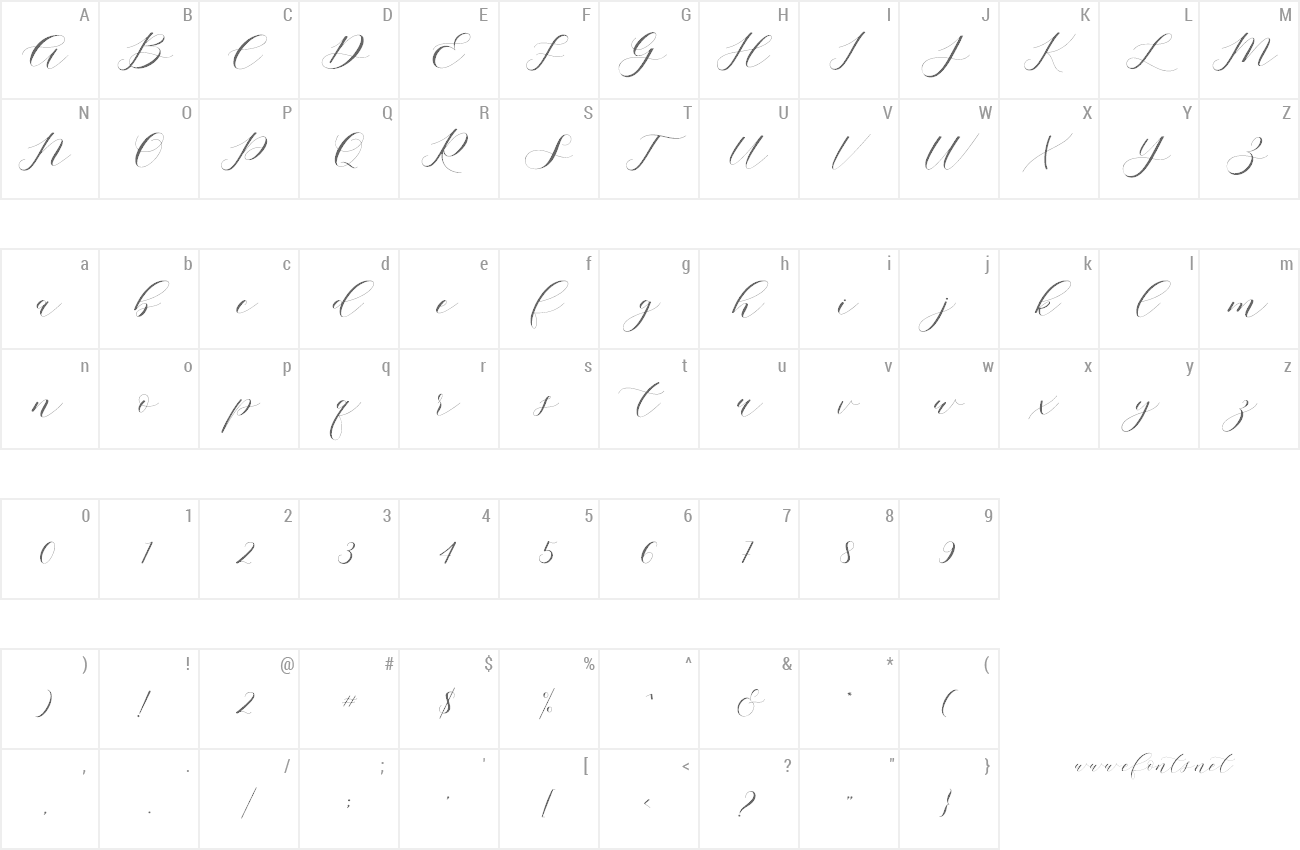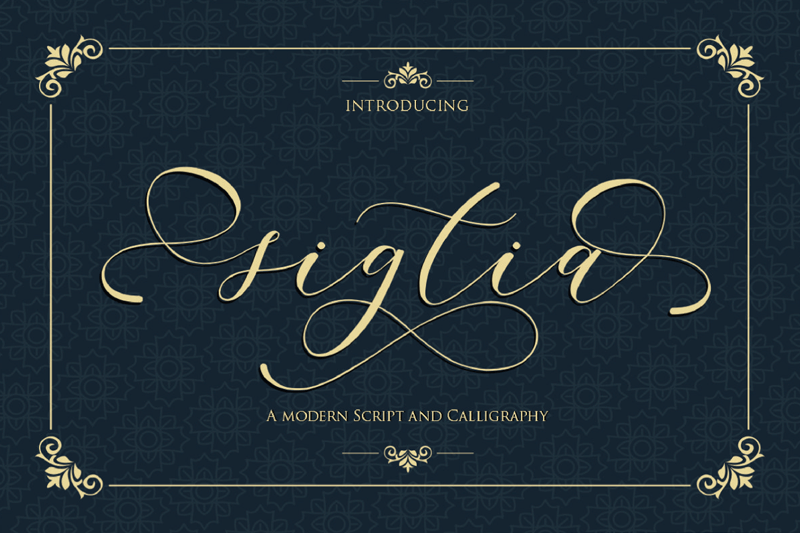
Preview and download Sigtia Font. Created by Gilar Studio in Script Calligraphy styles with Free for personal use license.
say hello to sigtia ! sigtia is a unique, cute and Lovely Script . It's hand look style makes perfect to use for invitation, stationery, wedding designs, social media posts, advertisements, product packaging, product designs, label, photography, watermark, special events,logos, signatures, quotes, badges, labels, packaging design, blog headlines or simply use it in your next design project. What's Included -sigtia TTF -sigtia OTF You can mix and match with Opentype feature: -Ekstras 76 ligature -More than 405 of glyphs -Alternates -Stylistic sets from ss01 to ss06 Using sigtia definitely make your text stand out.The alternative sigtia comes includes full set of gorgeous uppercase and lowercase letters, multilingual support, punctuation, and stylistic set gorgeous extras from a to z and beginning and ending numerals swashes.Perfect for DIY projects, greeting cards, labels, quotes, posters, wall art, branding, packaging, websites, photo & photography overlays, signs, window art, scrapbooking, tags and so much more! see full version here : https://www.creativefabrica.com/product/sigtia/ref/236330 Feel Free contact me if u any question. Give it a try! You will surely love it! Thanks and have a wonderful day, Gilar :) |